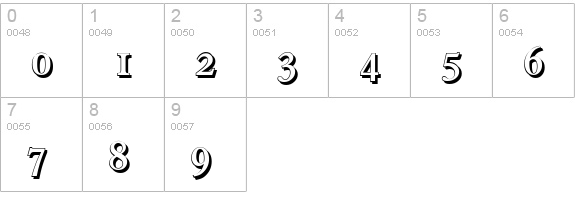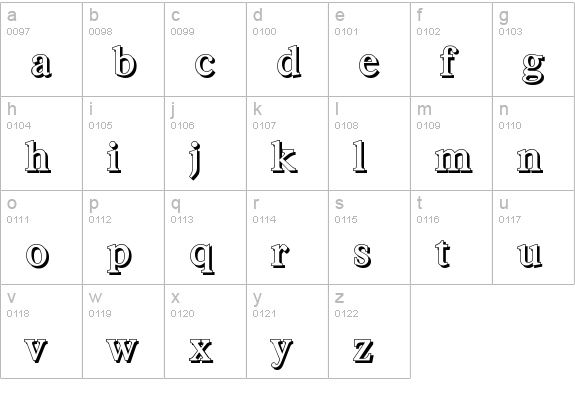
FranciscoShadow-Medium-Regular is a balanced, medium-weight variant in the FranciscoShadow typeface family \xE2\x80\x94 well suited to sub-headlines, navigation, and balanced editorial work.
FranciscoShadow-Medium-Regular font is a modern and versatile typeface that exudes elegance and sophistication. With its medium weight and unique shadow effect, this font is perfect for adding a touch of drama to your designs. Whether you're creating invitations, posters, or branding materials, FranciscoShadow-Medium-Regular font will make your text stand out with its bold presence. The best part? FranciscoShadow-Medium-Regular font is available for free download at FontsMarket.com. This means you can easily access this stunning font and use it in your projects without any cost. Don't miss out on the opportunity to elevate your designs with the captivating FranciscoShadow-Medium-Regular font today!